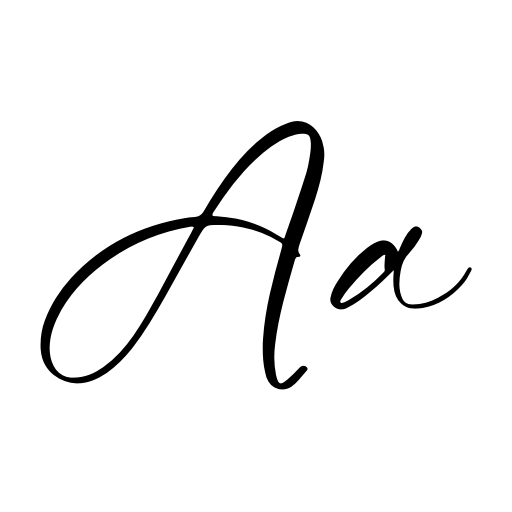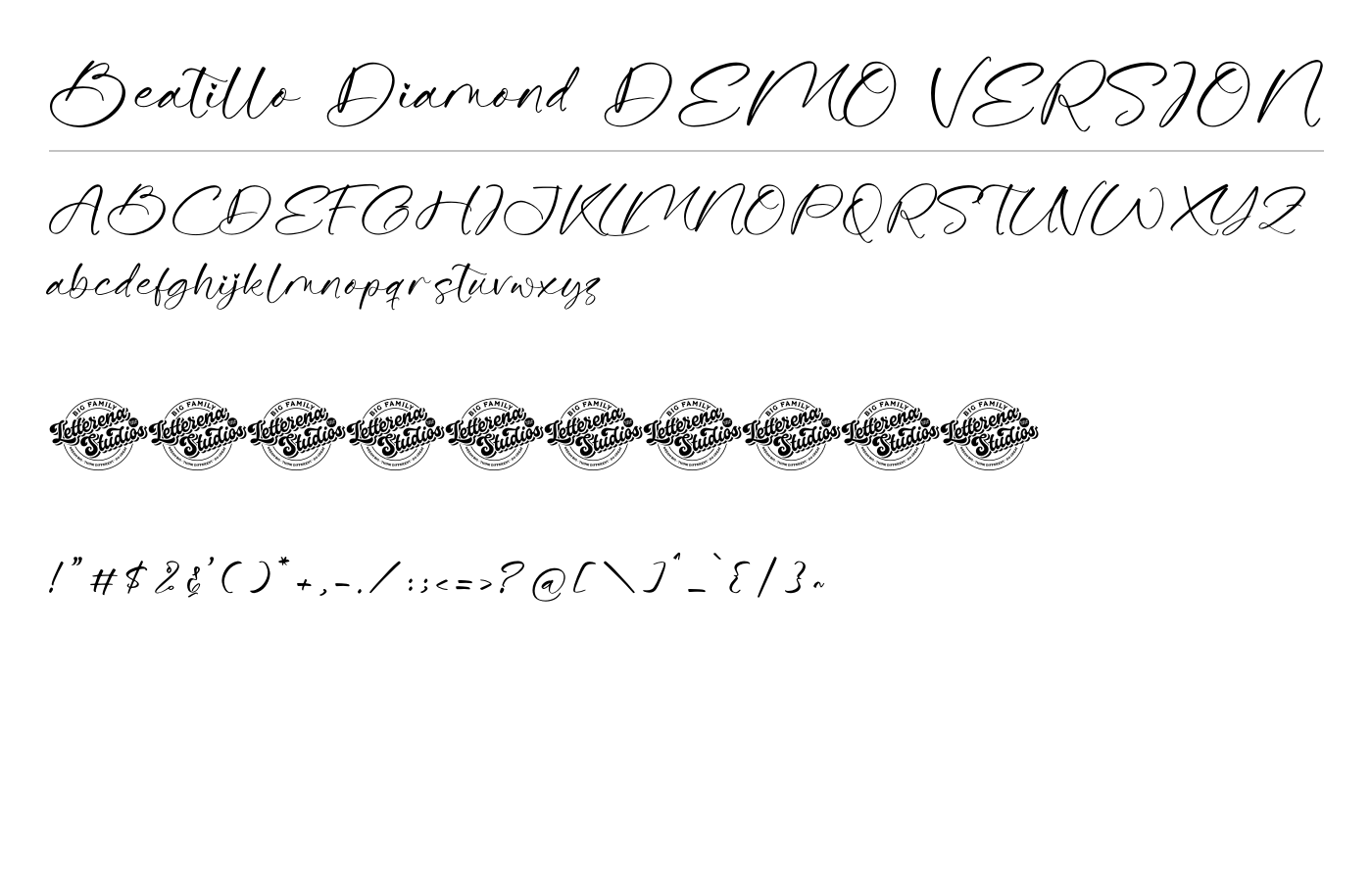
Beatillo Diamond DEMO VERSION is an elegant, handwritten script font characterized by its delicate, flowing strokes and refined, slightly irregular letterforms. It features a light weight with high contrast between thin and slightly thicker lines, giving it a graceful and sophisticated personality perfect for luxury branding, invitations, and artistic projects. This font works best in headlines, logos, and decorative text where a personal, stylish touch is desired.
Beatillo Diamond DEMO VERSION Font
About Beatillo Diamond DEMO VERSION Font